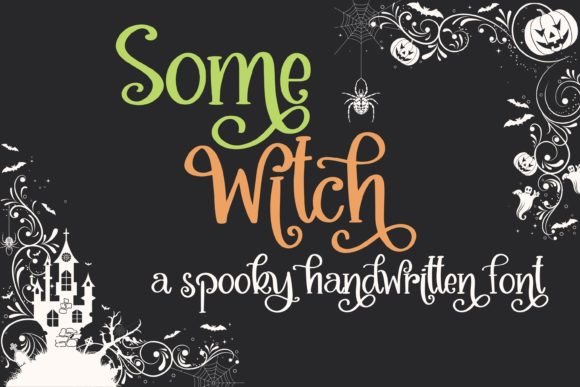
Introducing Some Witch Font: The Ultimate Halloween Script Font
Are you looking for a font that will add a touch of magic to your Halloween-themed designs? Look no further than Some Witch Font, a delightful and captivating cursive font that is perfect for the spookiest time of the year. In this article, we’ll introduce you to the enchanting world of Some Witch Font and explore its features, benefits, and uses.
A Cute and Elegant Halloween Script Font
Some Witch Font is a cute and elegant Halloween script font that combines the allure of calligraphy with whimsical elements. This exquisite blend of elegance and playfulness makes it ideal for capturing the spirit of the season. The intricate curves and graceful strokes of this font create a bewitching atmosphere, perfect for invitations, party decorations, apparel, and more.
Features of Some Witch Font
- Cursive and Script: The font features a beautiful cursive and script style that is perfect for creating eye-catching designs.
- Whimsical Elements: Some Witch Font includes whimsical elements that add a touch of magic to your designs.
- Elegant and Playful: The font combines elegance and playfulness, making it perfect for a wide range of Halloween-themed designs.
Uses of Some Witch Font
Some Witch Font is a versatile font that can be used for a wide range of Halloween-themed designs, including:
- Invitations: Create spooky and elegant invitations for your Halloween party or event.
- Party Decorations: Use Some Witch Font to create haunting and eye-catching party decorations, such as banners, signs, and posters.
- Apparel: Design Halloween-themed apparel, such as t-shirts, hoodies, and hats, using Some Witch Font.
- Posters: Create haunting and eye-catching posters for your Halloween event or promotion.
- Party Favors: Personalize your Halloween party favors, such as trick-or-treat bags and boxes, using Some Witch Font.
Benefits of Using Some Witch Font
Using Some Witch Font for your Halloween-themed designs offers a range of benefits, including:
- Unique and Eye-Catching: Some Witch Font is a unique and eye-catching font that will make your designs stand out from the crowd.
Tips for Using Some Witch Font
Here are some tips for using Some Witch Font effectively:
- Experiment with Different Sizes: Experiment with different font sizes to create a unique and eye-catching design.
- Combine with Other Fonts: Combine Some Witch Font with other fonts to create a unique and interesting design.
- Use in Combination with Images: Use Some Witch Font in combination with images to create a visually appealing design.
- Make it Bold: Make Some Witch Font bold by using it in combination with bold colors or graphics.
In conclusion, Some Witch Font is a delightful and captivating cursive font that is perfect for adding an enchanting touch to your Halloween-themed designs. With its exquisite blend of elegance and playfulness, intricate curves, and graceful strokes, this font is sure to make a statement. Whether you’re crafting spooky greetings, designing haunting posters, or personalizing your Halloween party favors, Some Witch Font is the perfect choice.